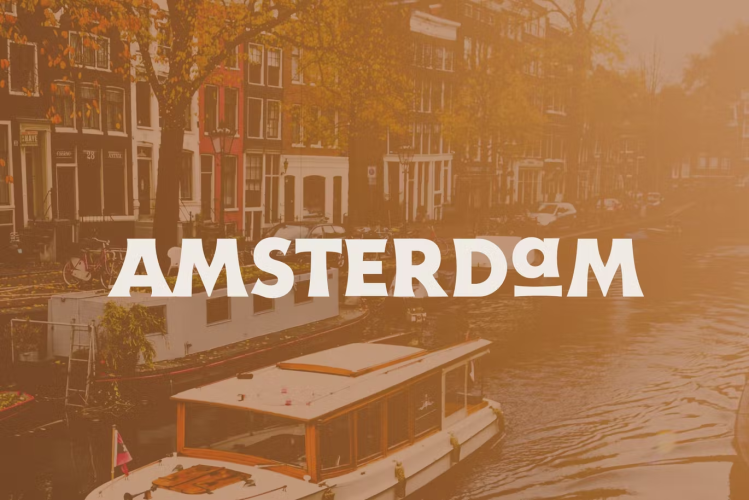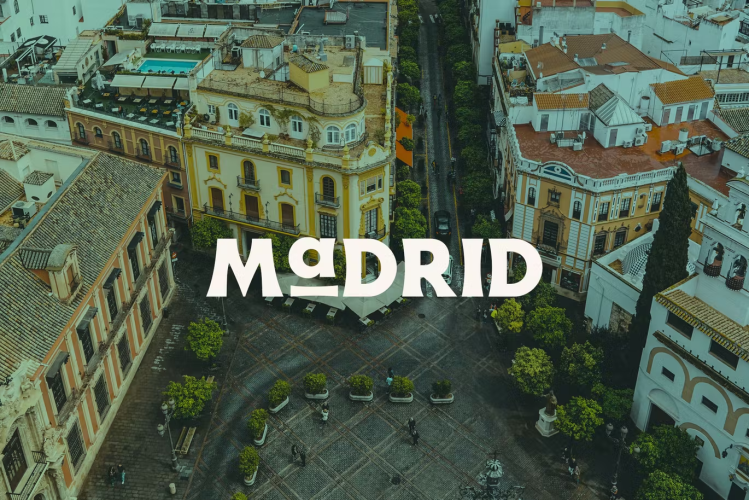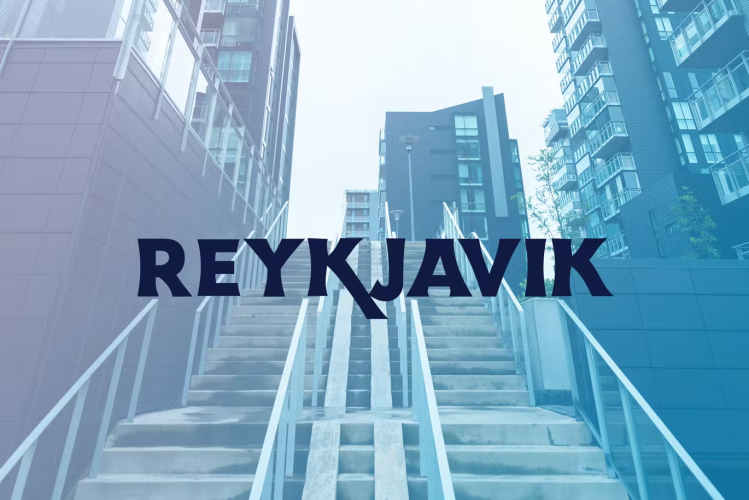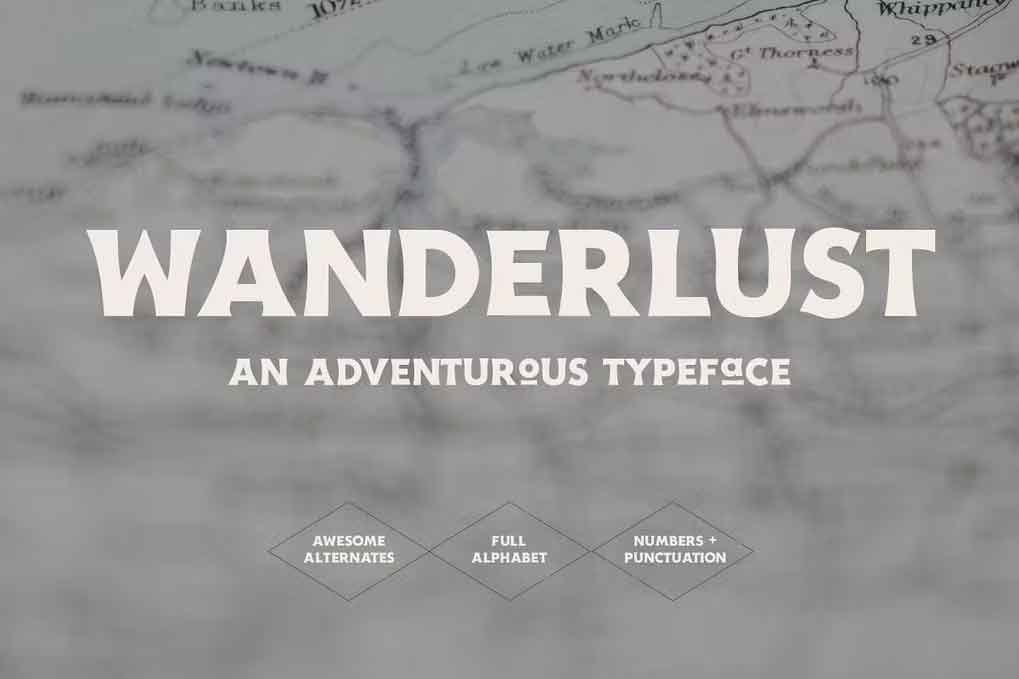
Wanderlust Travel Font
Say hello to Wanderlust, a beautiful typeface full of spirit, adventure, and awesome alternates! Great for headlines, logos, and standing out in the crowd!
Wanderlust Travel Font is a Serif Fonts font that brings a professional and versatile look to your projects. Say hello to Wanderlust, a beautiful typeface full of spirit, adventure, and awesome alternates!.